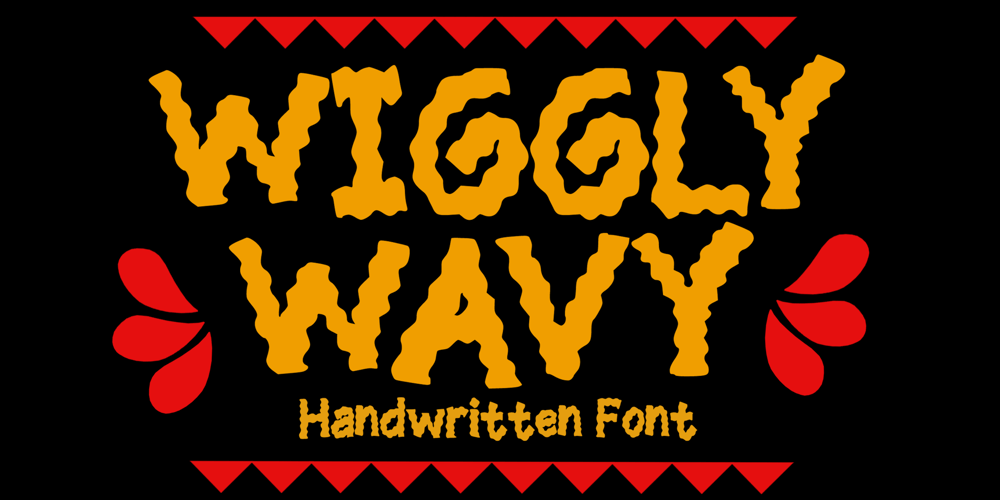
Wiggly Wavy Font Family was designed by Gabriel Valentinus and published by Mvmet. Wiggly Wavy contains 1 styles and family package options. Wiggly Wavy is a whimsical display font that took inspiration from french fries shapes. You can use it for anything ranging from t-shirts, kids’ book designs, restaurant menu, greeting cards, stickers, and posters, or anything that needs a casual touch. Try it to create lovely designs and feel the good vibes with it!